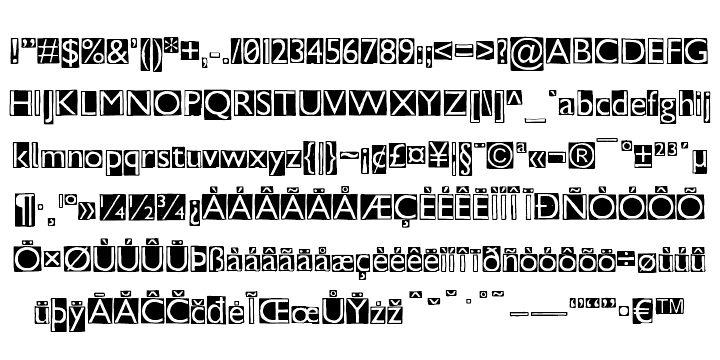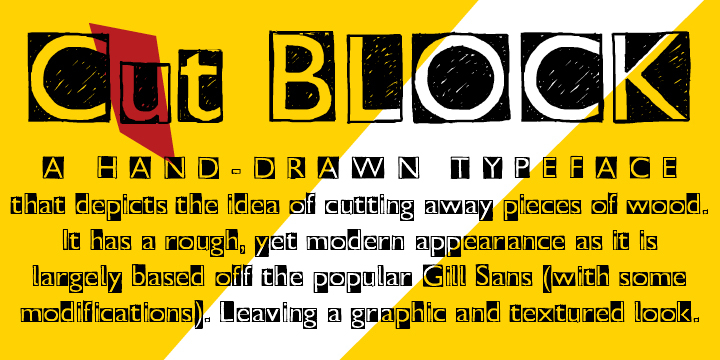
Cut Block
Cut Block is a dingbat and display font published by Adam Ladd.
Cut Block depicts the idea of cutting away pieces of wood.
It has a rough, yet modern appearance as it is largely based off the popular Gill Sans (with some modifications).
This leaves a graphic and textured look.
Cut Block depicts the idea of cutting away pieces of wood. It has a rough, yet modern appearance as it is largely based off the popular Gill Sans (with some modifications). This leaves a graphic and textured look.